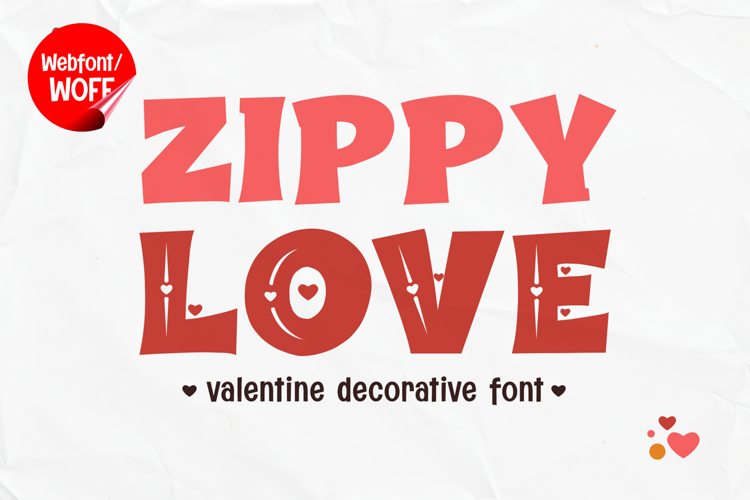
Zippy Love | Decorative Valentine Webfont for Sweet Websites
Zippy Love is a decorative Valentine webfont created to bring joy, charm, and a romantic atmosphere into website design. With its playful shapes and expressive style, this font captures the spirit of celebration and affection, making it ideal for projects that need a cheerful and eye-catching visual tone. It works perfectly for Valentine campaigns, wedding websites, gift shops, and lifestyle platforms.
The font includes a full set of uppercase characters designed with decorative details that enhance its romantic feel. These bold and expressive letterforms are ideal for headlines, banners, hero sections, and featured text. Their unique shapes help create strong visual impact and make important content stand out.
Zippy Love also provides numbers and punctuation, allowing consistent usage across various elements of a website. It can be used for pricing, dates, promotional text, and interface components while maintaining a cohesive decorative style. Every character is crafted to align with the overall visual theme.
With multilingual support, Zippy Love includes a wide range of accented characters, making it suitable for international audiences. This ensures that content remains consistent and visually appealing across different languages and regions.
The decorative nature of Zippy Love makes it especially effective for celebration-focused designs. It is well suited for Valentine promotions, wedding invitations, event pages, handmade product stores, and creative brand websites. The lively and expressive design enhances emotional appeal and encourages user engagement.
Even with its decorative style, Zippy Love maintains readability in digital formats. The spacing and proportions are carefully balanced to ensure text clarity across different layouts. This makes it suitable for both large display text and smaller UI elements.
Zippy Love is a decorative webfont that adds character and visual depth to website design. Its romantic and playful style helps create a memorable and engaging experience, making it a strong choice for modern digital projects.